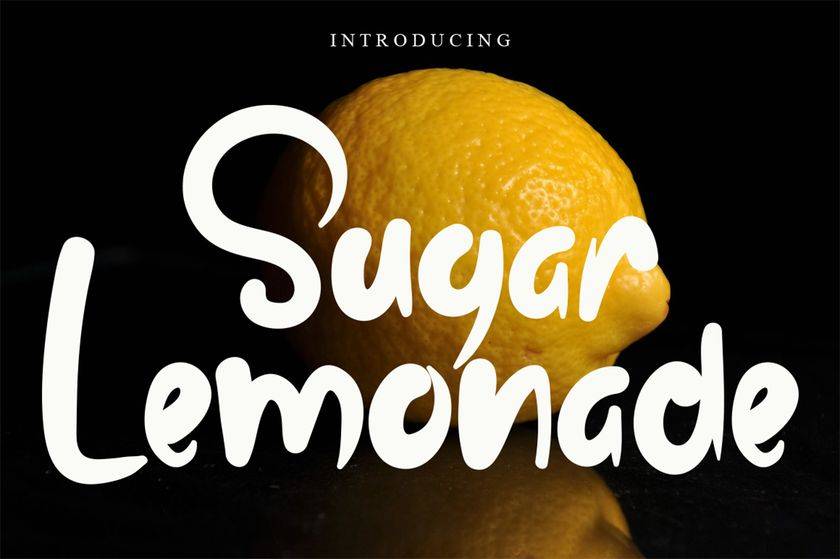
Sugar Lemonade is a playful and lively handwritten sans serif font characterized by its bold weight and rounded, organic strokes that create a friendly and approachable vibe. Its casual style with irregular shapes and whimsical letterforms makes it perfect for fun, informal designs such as children’s products, creative branding, and eye-catching headlines. This font adds a warm and energetic touch, ideal for projects that want to convey creativity and joy.
Sugar Lemonade Font